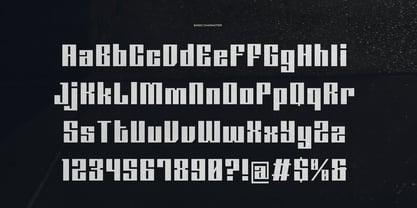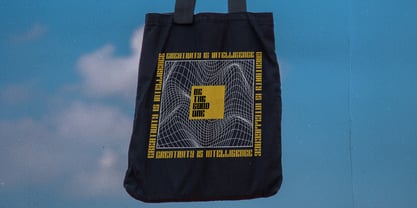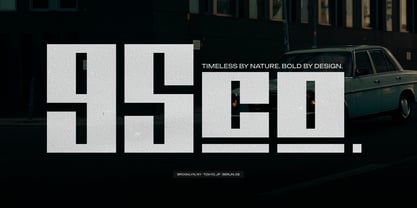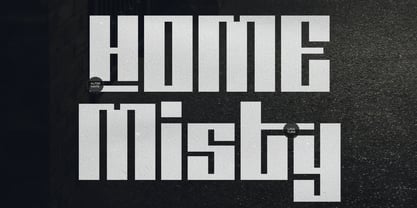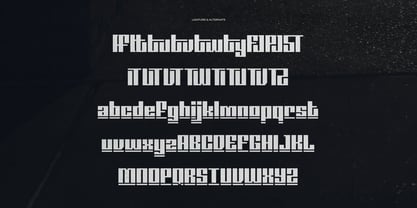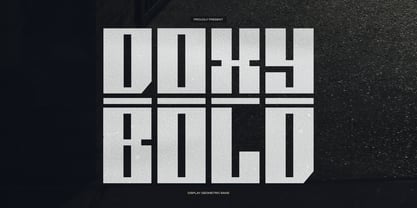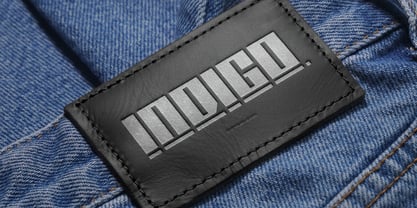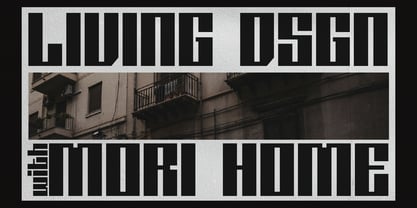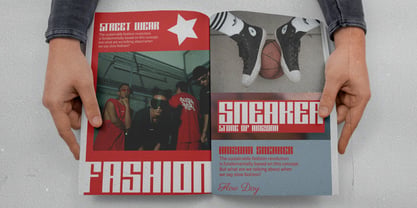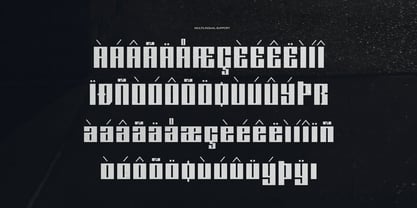
Doxy Bold
Doxy Bold | Display Geometric Sans, from Gracetypestudio, suitable for any projects such as: logos, branding projects, homeware designs, product packaging, mugs, quotes, posters, shopping bags, t-shirts, book covers, name card, invitation cards, greeting cards, label, photography, watermark, special events, and all your other lovely projects that need a Display Geometric Sans taste.
• Regular and Italic
• Standard glyphs
• Alternate and Ligature
• Fonts include multilingual support